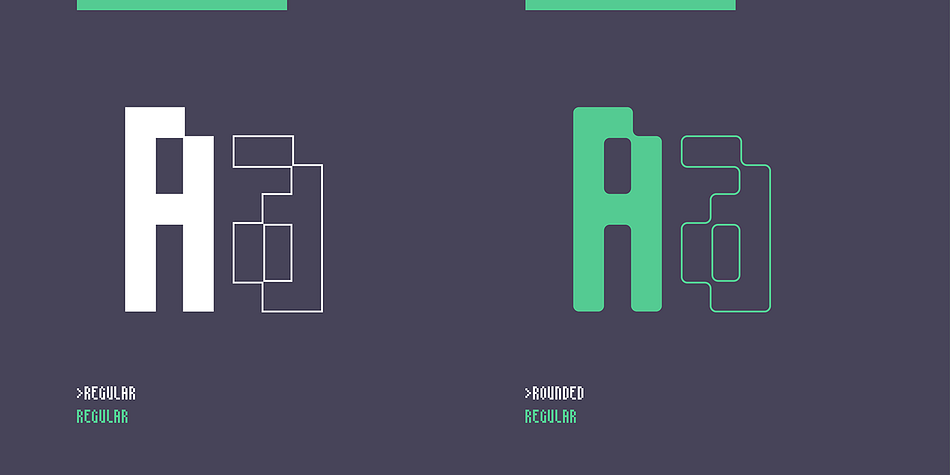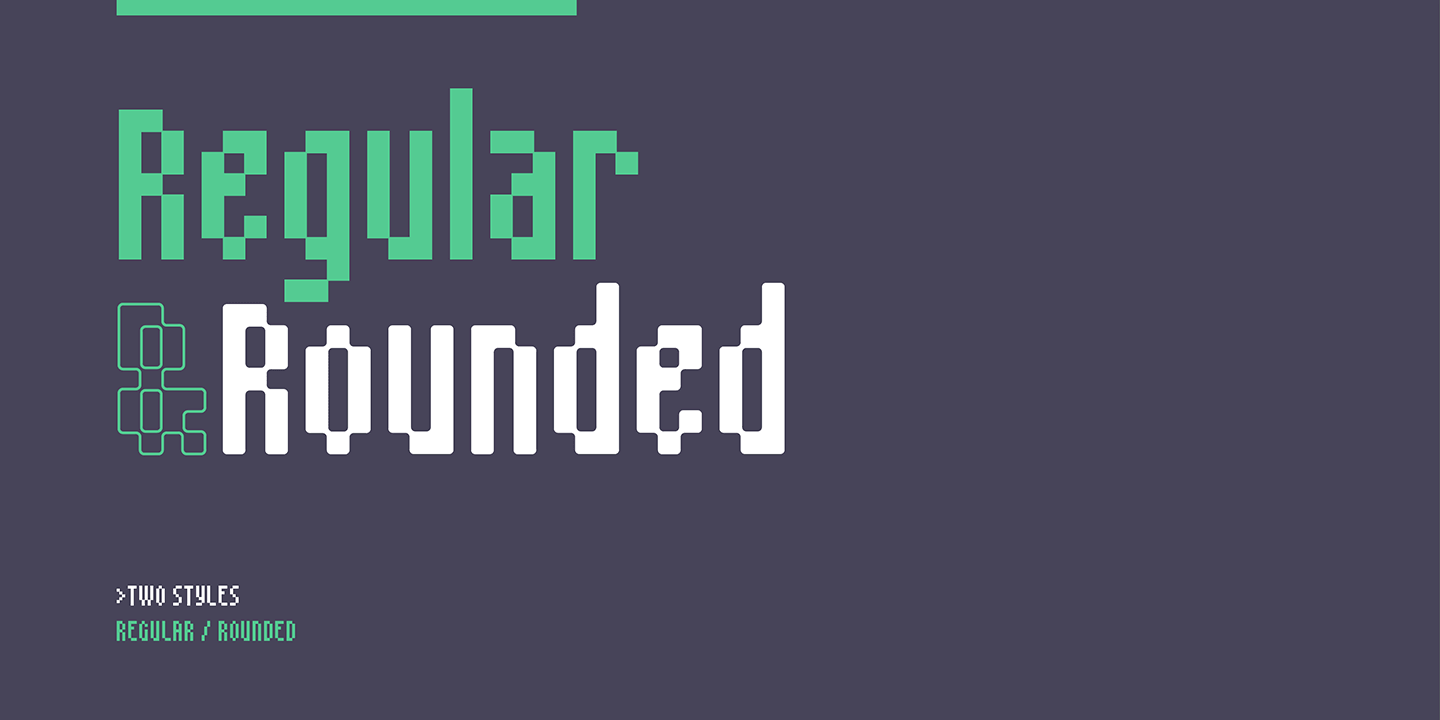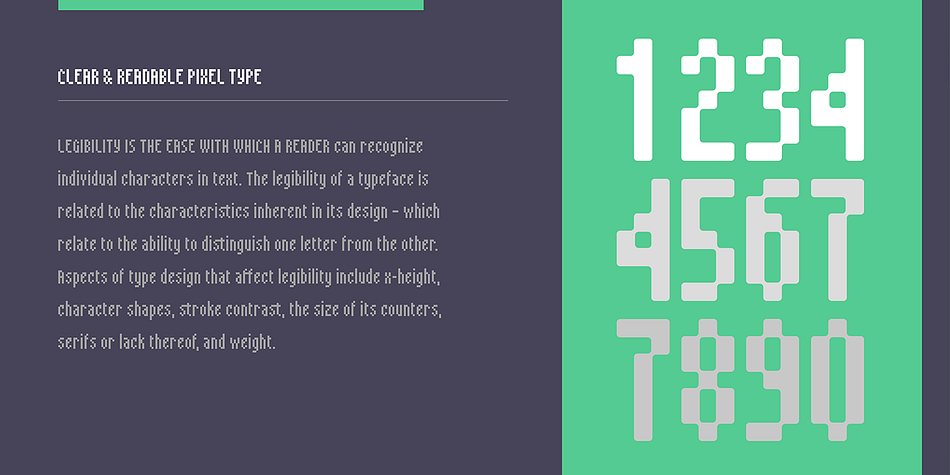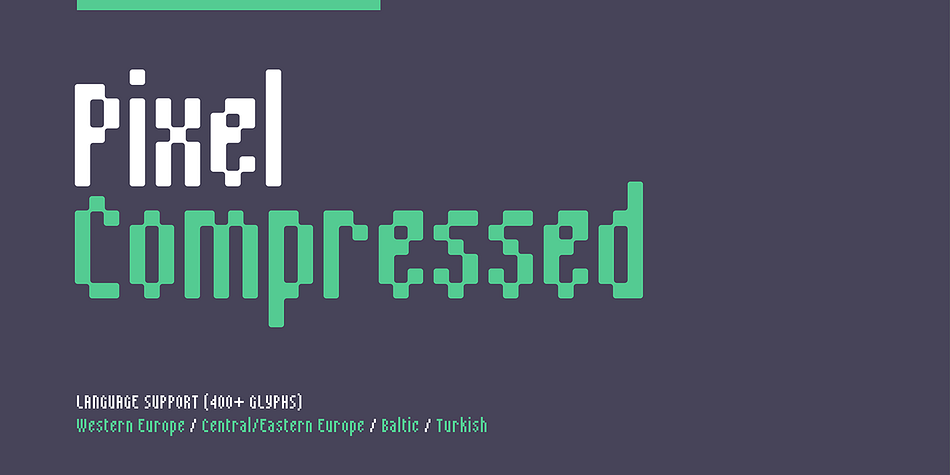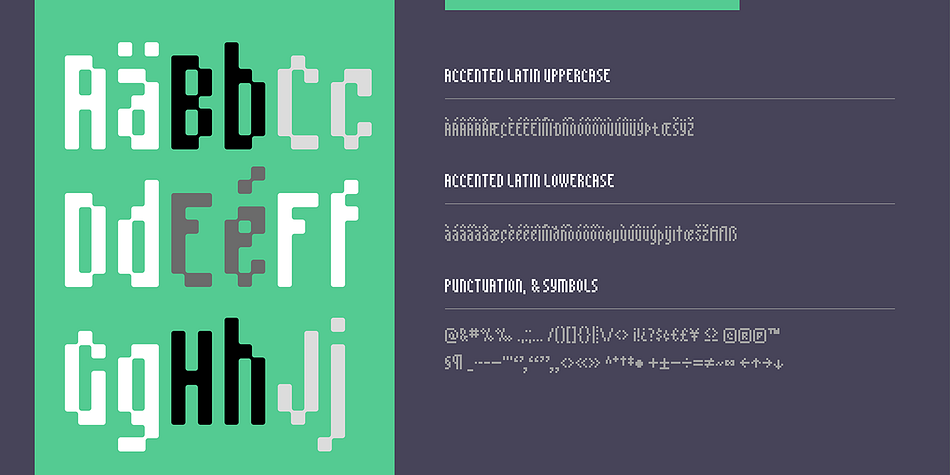
SB Expo is a pixel font family. This typeface has two styles and was published by SelfBuild Type Foundry.
SB Expo was designed for use at small sizes online. Like SB Websnap it was intended to be used where space is at a premium, such as in banner adverts and photo credits, but SB Expo takes a different approach to saving space. It was designed for use in pixel graphics and as a Flash compatible pixel font at a time when designers were experimenting with ways to improve the look and feel of a fledgling internet. It is a condensed pixelfont but retains a high degree of legibility, even at small sizes. It is optimised for use at 10px but it also works well at 20px as a typeface for subheadings, partly due to its narrow letterforms. More recently, a rounded pixelfont version was added, opening it up to usage as a display typeface on modern high-DPI screens.